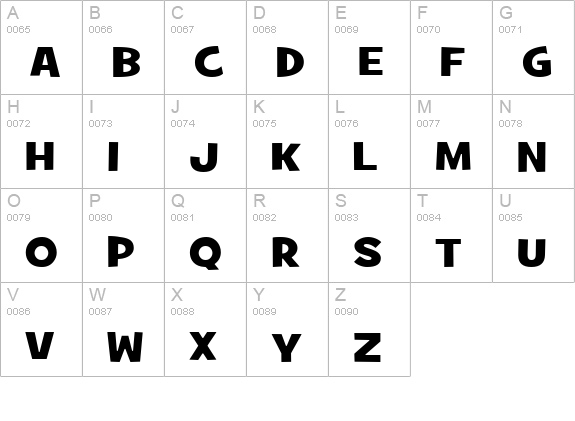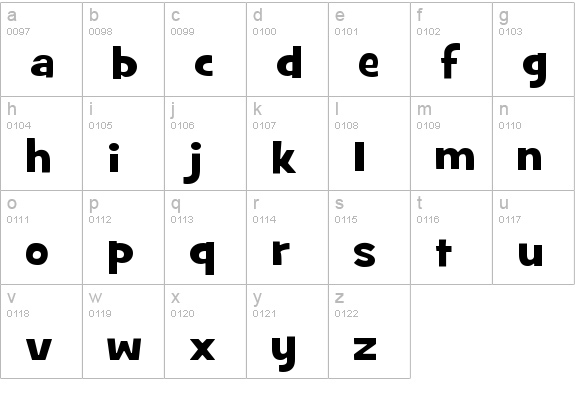
GrilledCheese BTN Wide is a distinctive, extended-width variant in the GrilledCheese typeface family \xE2\x80\x94 well suited to design and typography projects.
GrilledCheese BTN Wide font is a bold and eye-catching typeface that is perfect for making a statement in your designs. With its thick, wide letters, this font exudes a sense of strength and confidence. Whether you're creating a poster, logo, or any other design project, GrilledCheese BTN Wide will help your text stand out and grab attention. The best part? GrilledCheese BTN Wide font is completely free to download at FontsMarket.com. You can easily add this unique and impactful font to your collection without breaking the bank. Don't miss out on this opportunity to enhance your designs with the striking appeal of GrilledCheese BTN Wide font. Download it today and start creating visually stunning projects that leave a lasting impression.